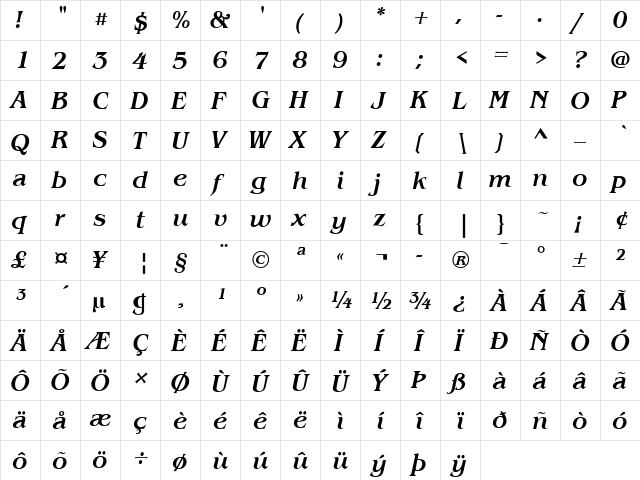
Benguiat Medium Italic Font Preview
Benguiat Medium Italic
Benguiat Medium Italic Font Details
Design Context for Benguiat Medium Typeface
Benguiat Medium takes a measured approach to typography — its balanced proportions and neutral character make it a reliable workhorse for both digital and print work. The slanted form adds forward momentum and visual energy.
Pro Tip: Try Benguiat Medium for annotation and caption copy alongside an upright companion — the contrast in angle creates a dynamic but ordered typographic system.